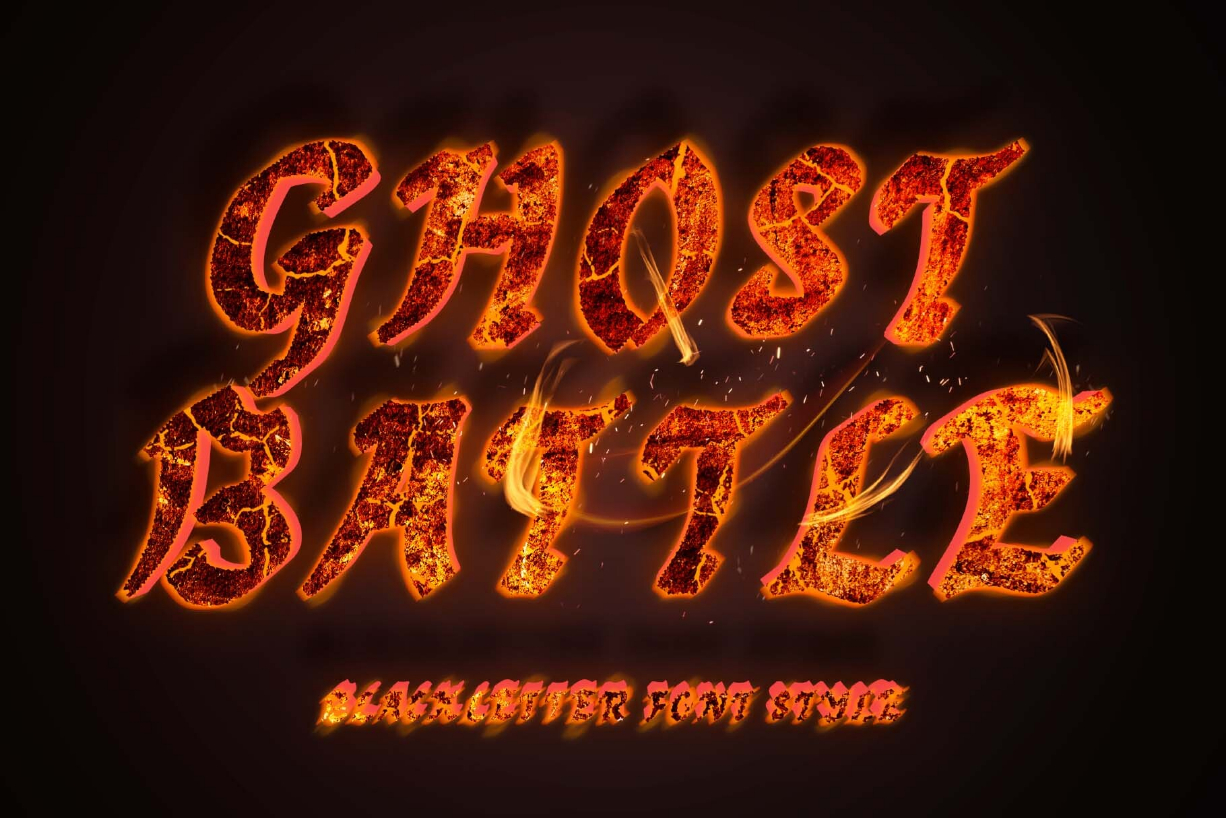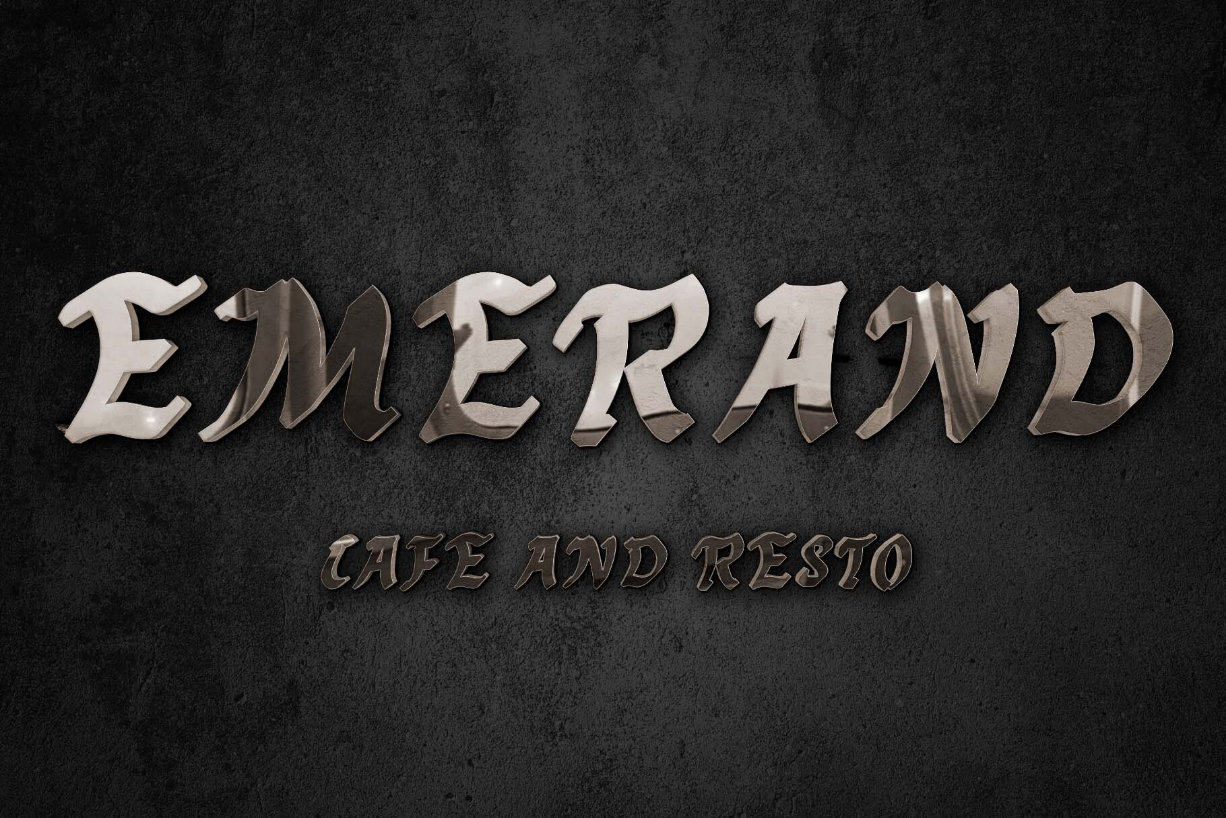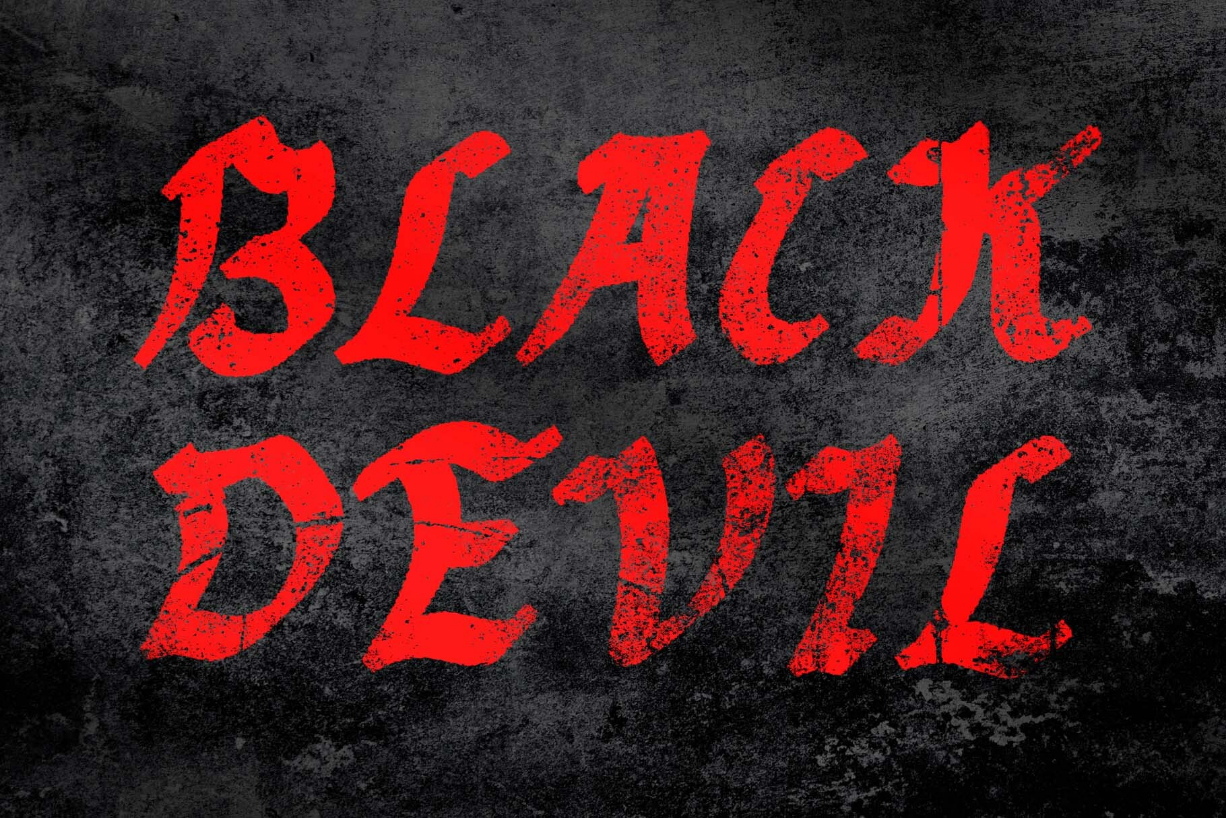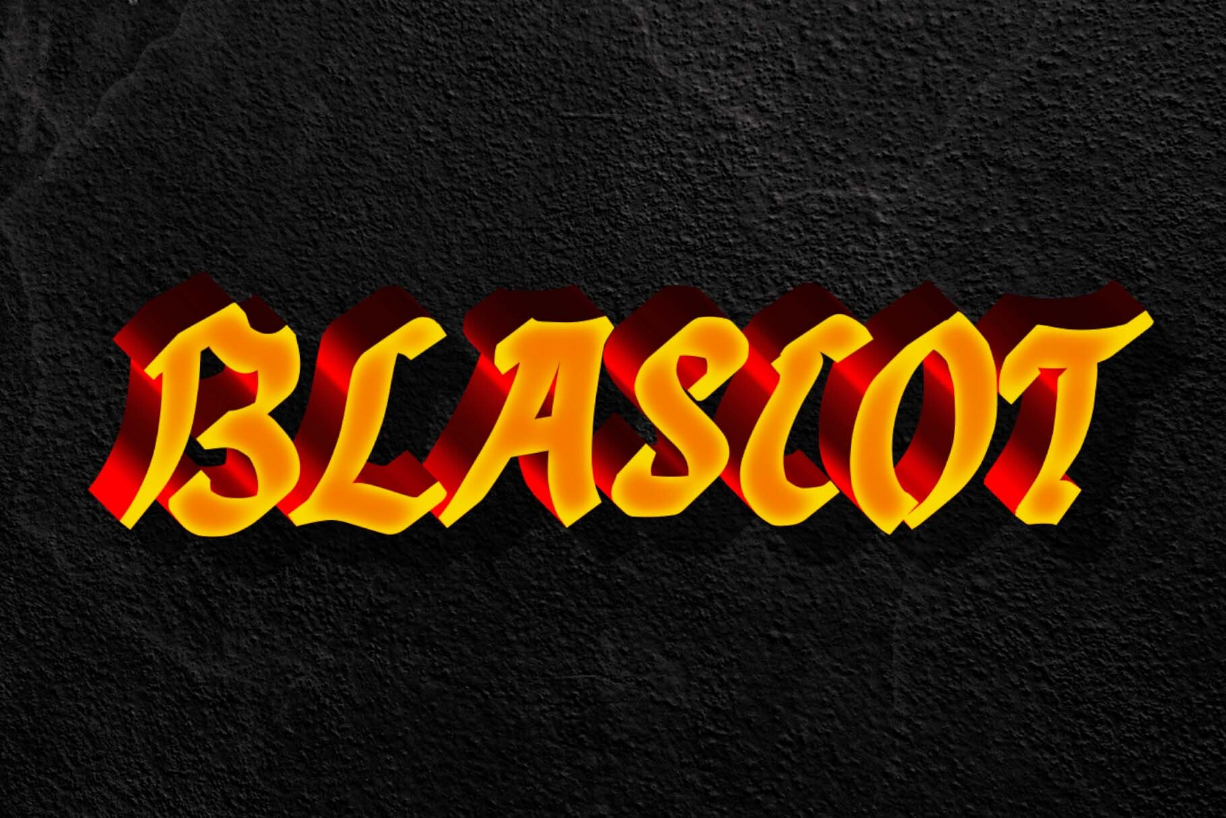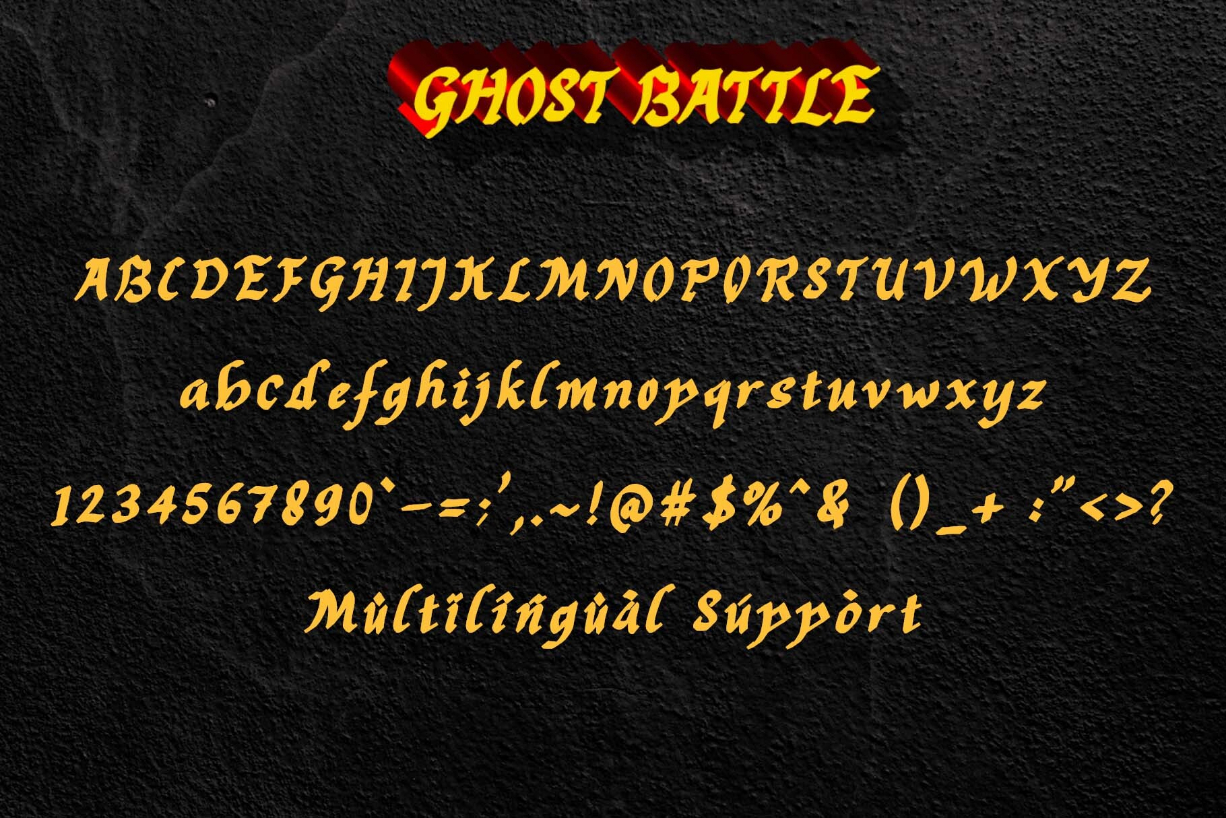
Ghost Battle Font
About Ghost Battle Font
“Ghost Battle” is an elegant blackletter font. This font is equipped with uppercase, lowercase, numerals, punctuation, and multilingual support. Very suitable for posters, Halloween, stickers, tattoos, Christmas, logos, banners, branding, fall, weddings, engagements, photography, and others.